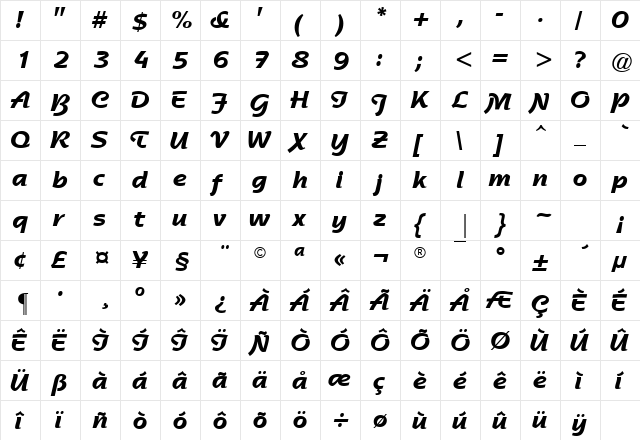
SentimentalScriptSSK Bold
Design Context for SentimentalScriptSSK Typeface
SentimentalScriptSSK flows with the natural rhythm of handwritten lettering, making it ideal for designs that call for warmth and personal expression. Its bold stroke weight gives it real presence on the page.
Font Pairing: Combine SentimentalScriptSSK with a simple geometric sans for maximum contrast — the tension between flowing curves and clean structure is a classic typographic pairing.
Pro Tip: Use SentimentalScriptSSK for short runs of text — names, titles, or taglines. Extended body copy in script faces tires the eye quickly.